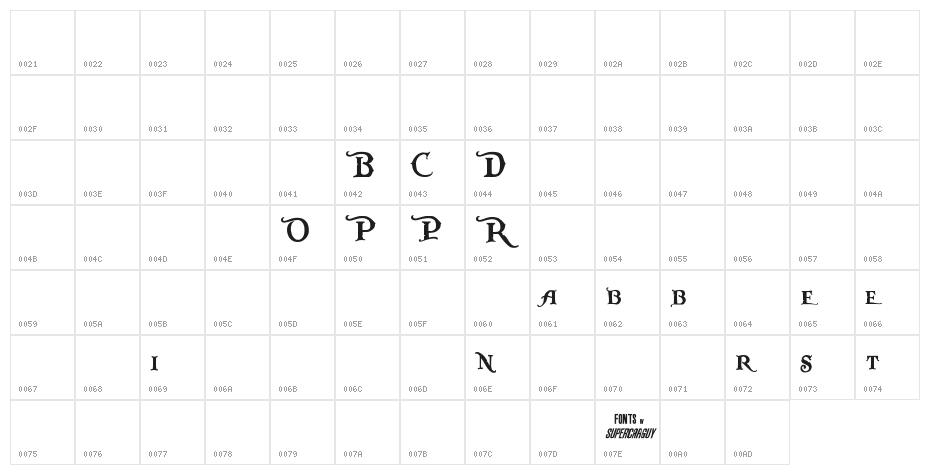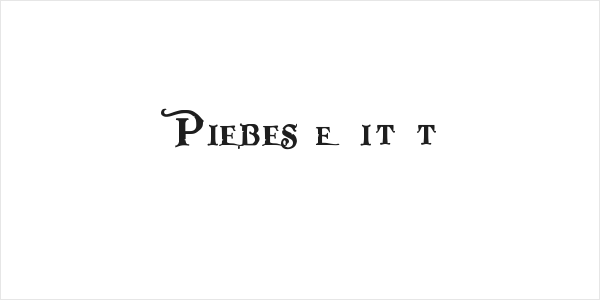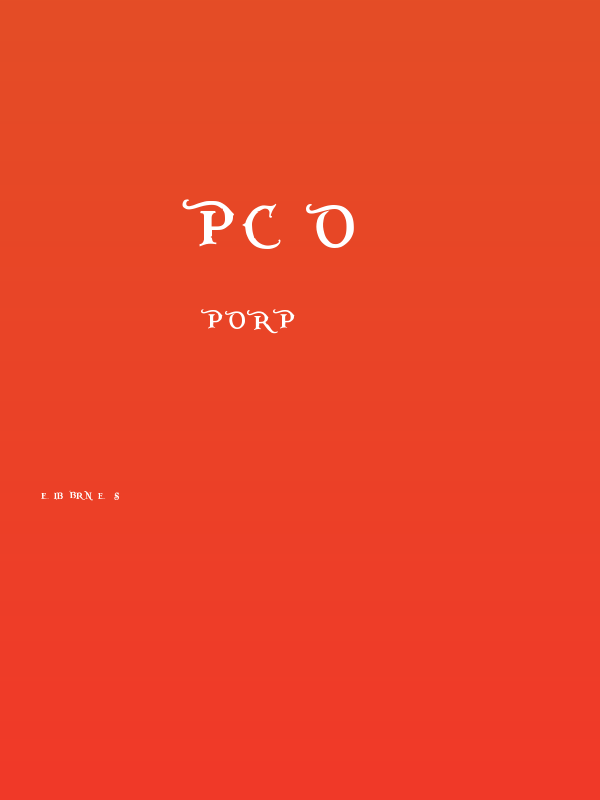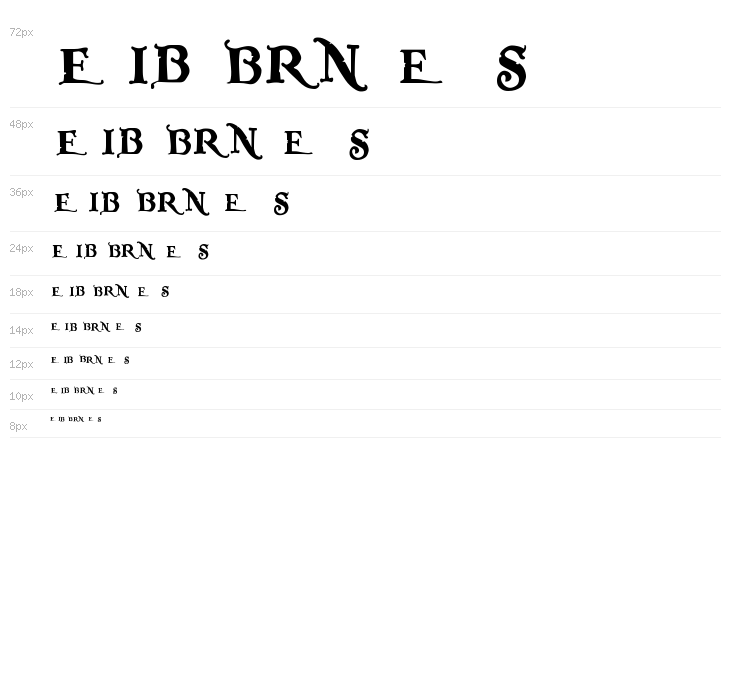
Pieces of Eight Alt Font
Pieces of Eight Alt Description
This font exhibits a decorative and ornate style, characterized by its elaborate serifs and swashes that extend from the main strokes of the letters. The design is reminiscent of vintage or historical typefaces, often used in contexts that require a touch of elegance and sophistication. The letters are bold and have a strong presence, making them suitable for attention-grabbing headlines or titles. The intricate details in the serifs and the overall structure suggest a careful craftsmanship, ideal for projects that aim to convey a sense of tradition or luxury.
| Proposed Projects | Perfect for vintage-themed designs, luxury branding, invitations, or theatrical posters. |